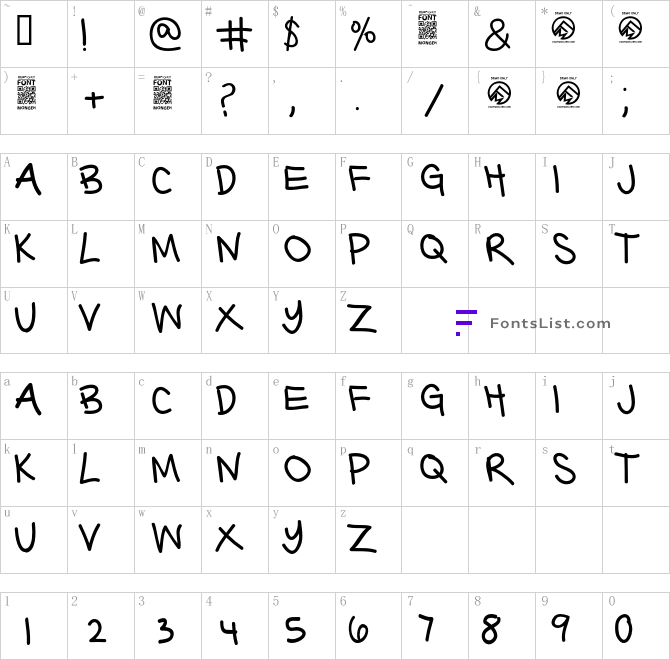
- Font Name:Barter with a Gypsy Thin
BarterwithaGypsy-Thin.otf is a very beautiful artistic font, BarterwithaGypsy-Thin.otf is widely used in the design and printing of various books and pictures,BarterwithaGypsy-Thin.otf has a strong visual impact,BarterwithaGypsy-Thin.otf is a commonly used font in newspapers, magazines and books, and is used in posters, e-commerce Poster design, store design, logo design, font design and other fields.BarterwithaGypsy-Thin.